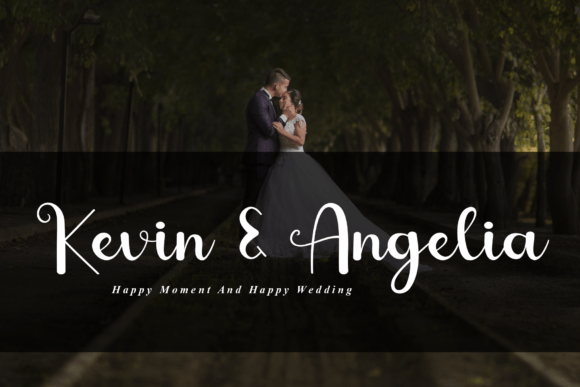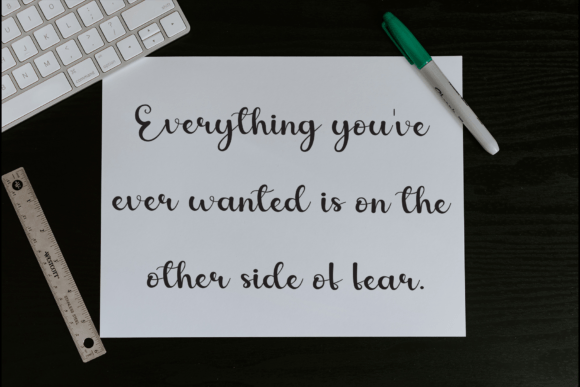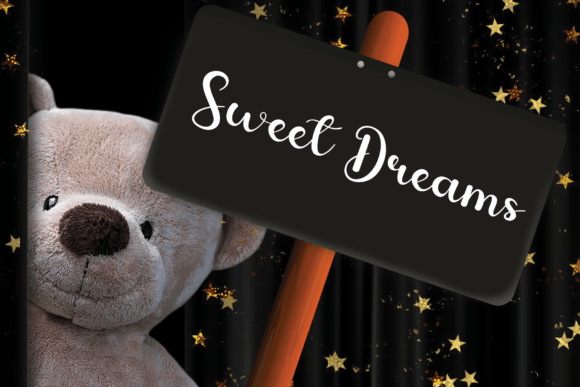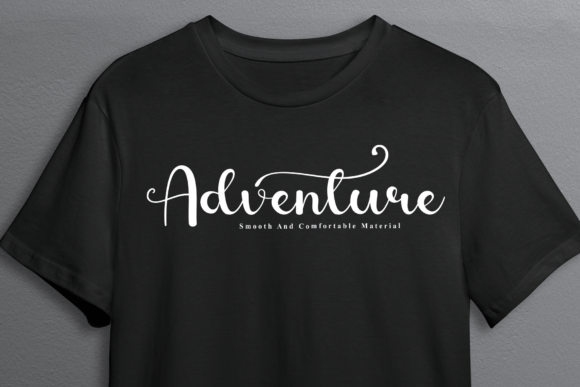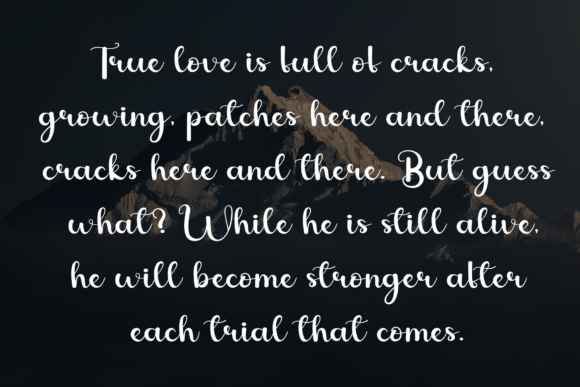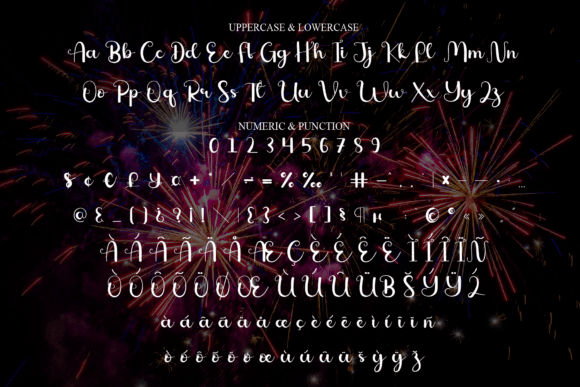
The Joy of Bursting Font: Adding a Playful Touch to Your Designs
I’ll never forget the time I was working on a project for a client’s birthday party invitation. I had the design concept all sorted out, but I was struggling to find the perfect font to match the playful and lively vibe of the event. That’s when I stumbled upon Bursting Font, and it instantly brought a smile to my face. The bouncy letters and friendly feel of the font were exactly what I needed to bring the design to life.
An Honest Review of Bursting Font
- ✨ The playful and lively feel of the font makes it perfect for invitations, quotes, and any design that needs a cheerful touch.
- ✅ The letters are easy to read, making it a great choice for designs that require a personal feel.
- 💕 The font has a unique and distinctive look that sets it apart from other handwritten fonts.
While Bursting Font is an amazing font, there are a few things to keep in mind:
- ⚠️ The font may not be suitable for very formal or professional designs, as it has a playful and casual feel.
- 🤔 Some of the letters may appear a bit irregular or imperfect, which can be a deliberate design choice but may not be suitable for all designs.
The Backstory of Bursting Font
Bursting Font was designed by a team of creatives who wanted to create a font that would bring joy and energy to designs. The font was inspired by the playful and lively feel of handwritten letters and the need for a font that could add a personal touch to designs. The design team spent countless hours perfecting the font, making sure that it was both fun and functional.
Q: What is Bursting Font?
A: Bursting Font is a fun and playful handwritten font that’s perfect for designs that need a cheerful touch.
Q: Is Bursting Font easy to read?
A: Yes, Bursting Font is easy to read and has a clear, friendly feel that makes it perfect for designs that require a personal touch.